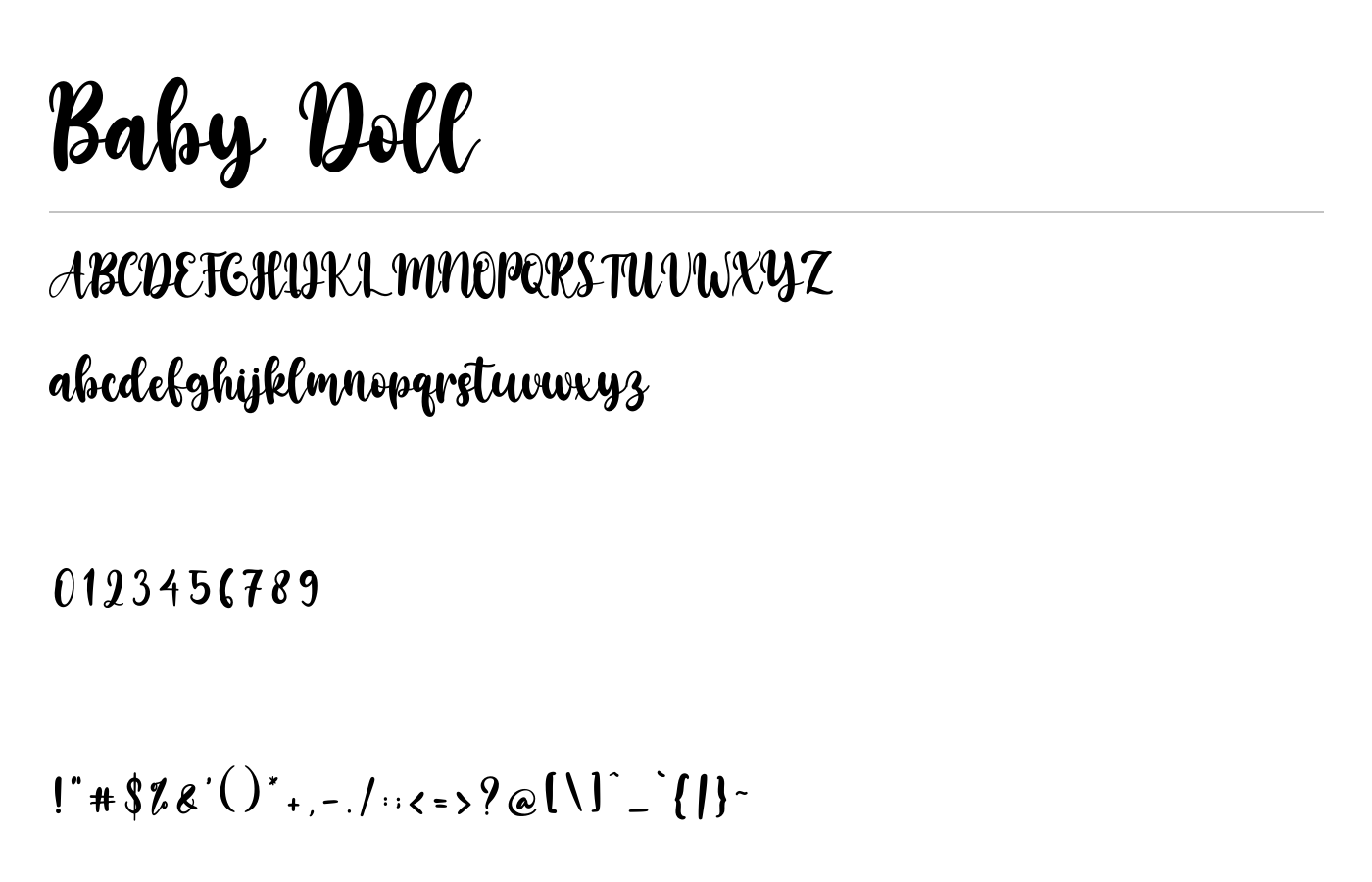
Baby Doll is a charming script font with a soft, hand-lettered feel, featuring smooth, flowing strokes and a moderate contrast that adds playful elegance. Its rounded, friendly letterforms and slightly whimsical details make it perfect for branding, invitations, and creative projects that want to convey warmth and personality. This font works especially well in headlines and logos where a casual yet stylish touch is desired.
Baby Doll Font
About Baby Doll Font